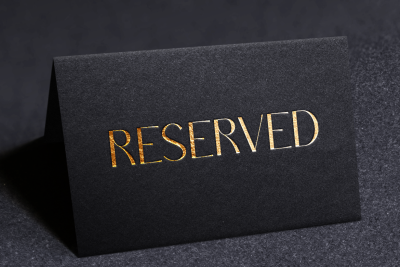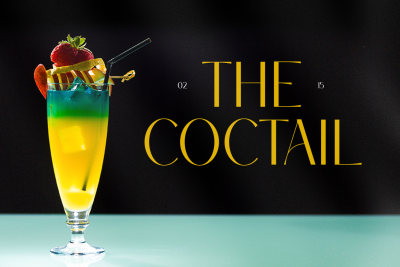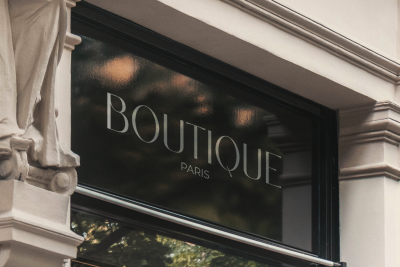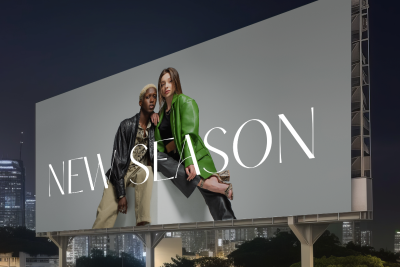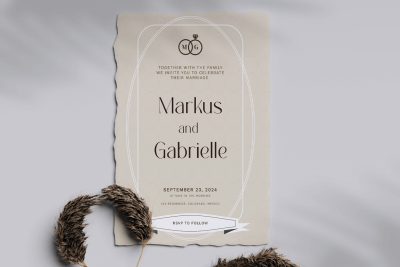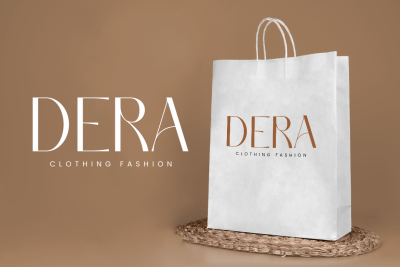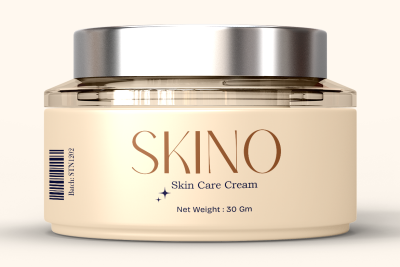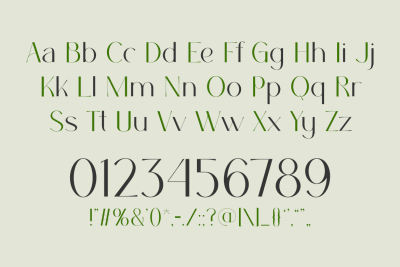
Instagram Font Romeda combines modern elegance with a touch of classic charm. Inspired by high-end branding and minimalist design, Romeda features sleek lines, delicate curves, and unique letterforms that stand out in any design. This stylish font, with its thin strokes and high contrast, adds sophistication to both digital and print projects. Moreover, Romeda captures attention without overpowering other elements, making it versatile and visually appealing across various media.
Additionally, Romedaโs aesthetic is minimalistic yet elegant, conveying confidence and poise. Its refined shapes and subtle details make it perfect for projects focused on luxury and exclusivity. With a blend of classic and modern design elements, Romeda works well in settings where sophistication and style are essential. Therefore, designers can use Romeda to create impactful headlines, logos, and branding materials that leave a memorable and refined impression. Its adaptability across various themes and platforms makes it highly desirable for those seeking timeless appeal and versatility in design.
Instagram Font Romeda Ideal For
The Instagram Font Romeda is ideal for brands and individuals looking to elevate their visuals with sophistication and elegance. For instance, high-end fashion brands, luxury lifestyle products, beauty lines, and jewelry designers all benefit from Romedaโs refined appearance. Furthermore, lifestyle influencers and content creators on visual-first platforms like Instagram, Pinterest, and TikTok can use Romeda to craft polished, aesthetically pleasing posts, stories, and highlights that captivate their audience.
In addition, design agencies, freelancers, and creatives in branding and advertising find Romeda perfect for projects requiring a premium touch. Its clean and elegant forms enhance logos, social media graphics, and other branding materials. Romeda also works beautifully for wedding stationery, event invitations, and editorial projects with a luxurious feel. Ultimately, with Romeda, designers can add timeless elegance, modern refinement, and unmatched versatility to any project, enhancing its appeal across various audiences, industries, and platforms.